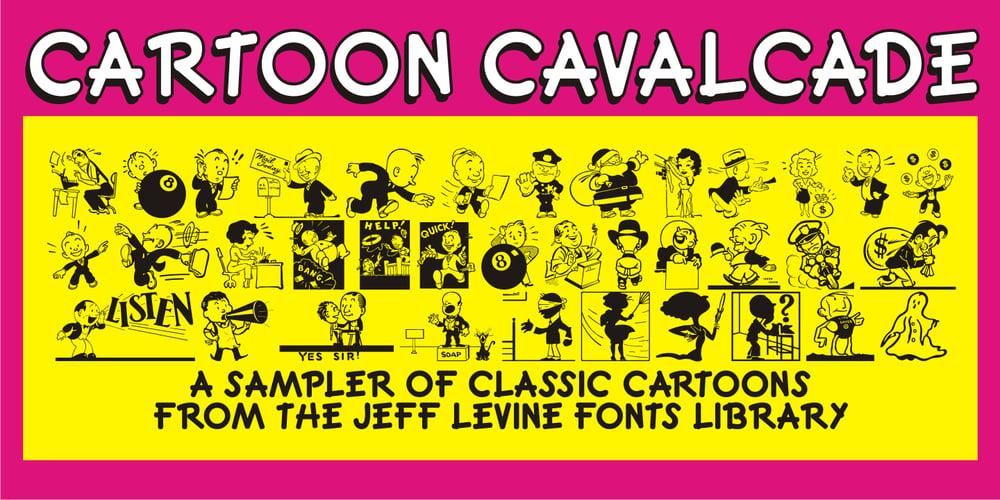
Cartoon Cavalcade JNL Font Family was designed by Jeff Levine and published by Jeff Levine. Cartoon Cavalcade JNL contains 1 styles and family package options. There are times when a customer might look over a dingbat font and like a few of the images because they suit a particular need, but hesitates on purchasing the font because enough of those images isn’t available. For all of the lovers of vintage letterpress cartoon cuts, Cartoon Cavalcade JNL collects sixty two assorted images from many of the Jeff Levine Fonts dingbat collections and places them within one singular file.